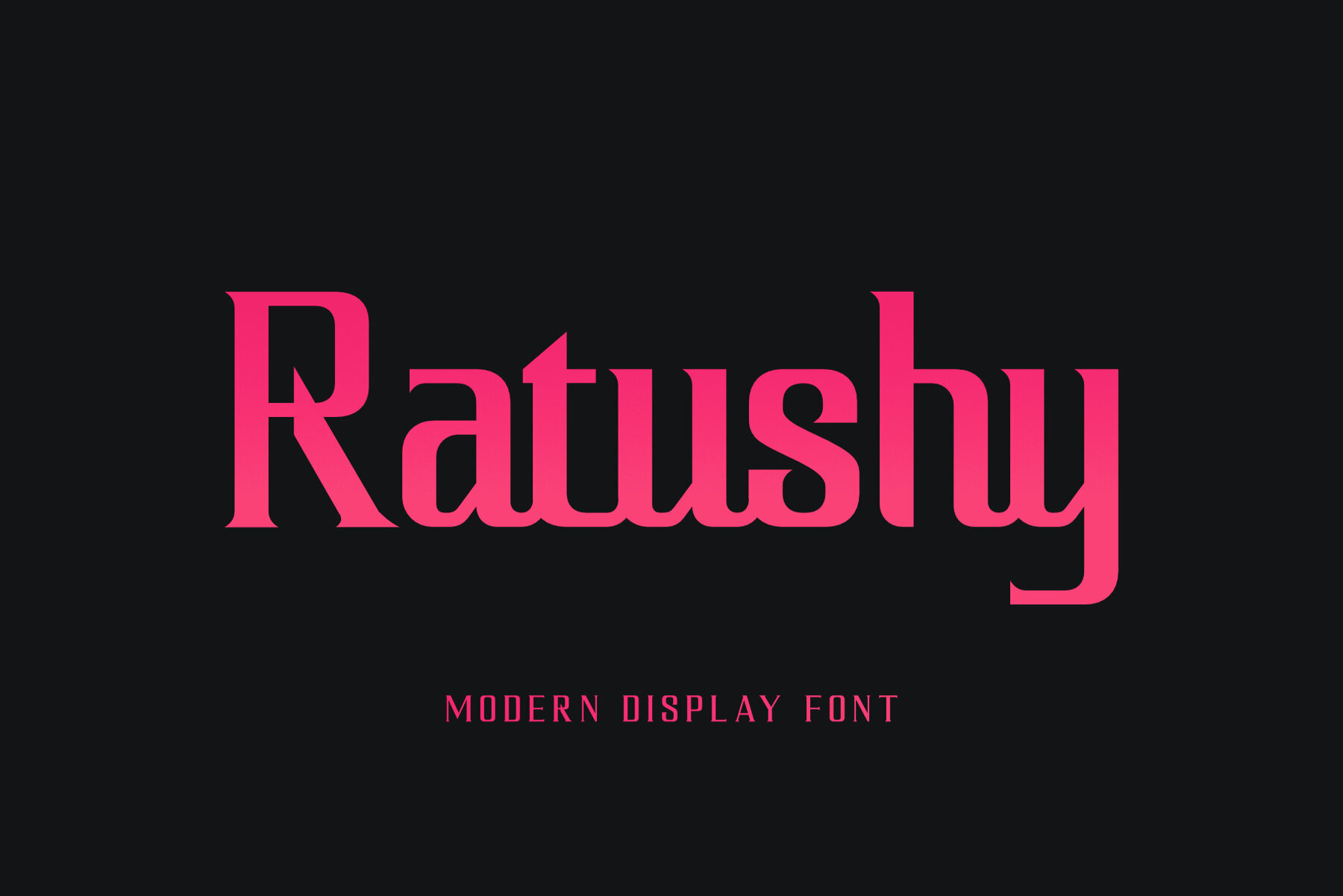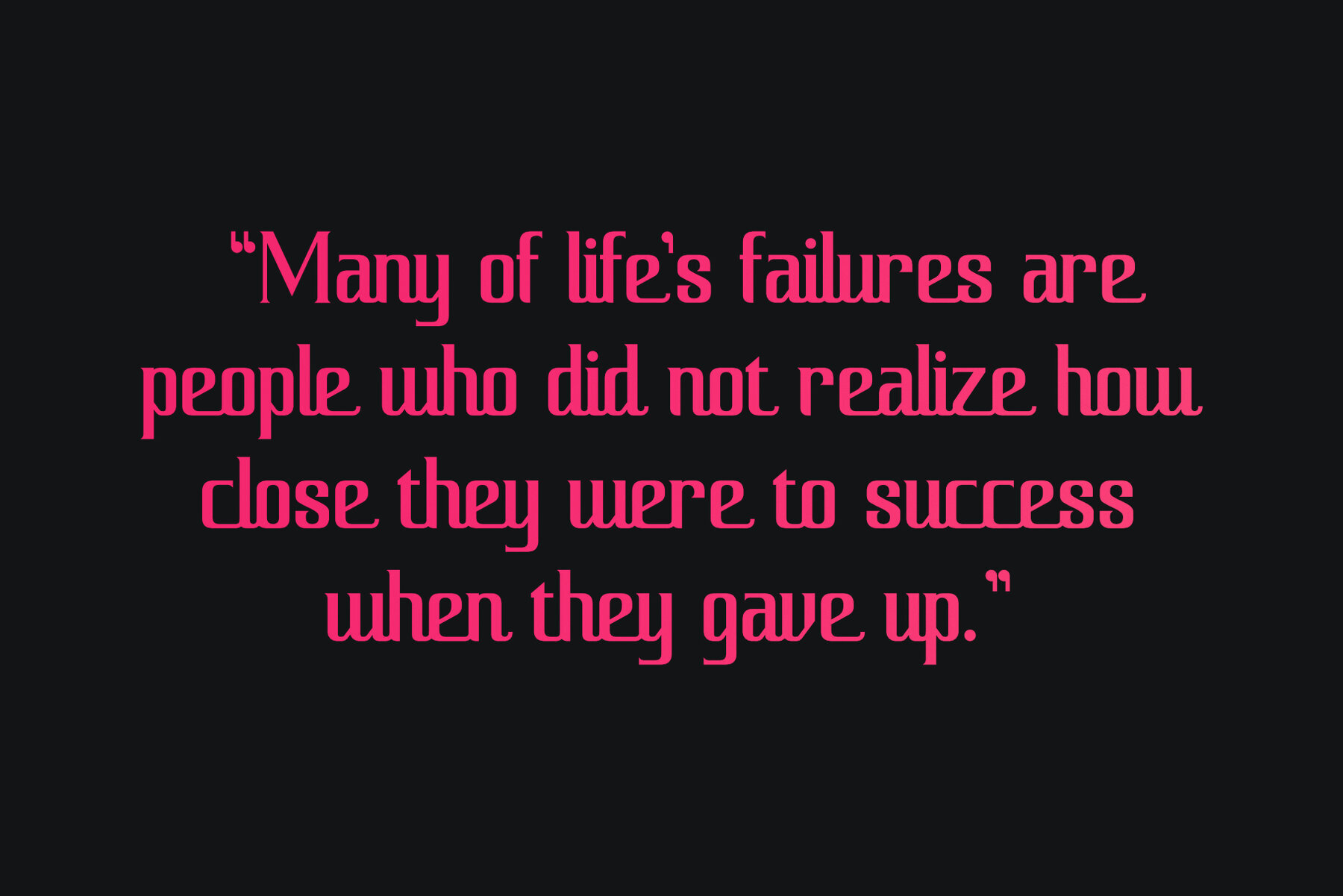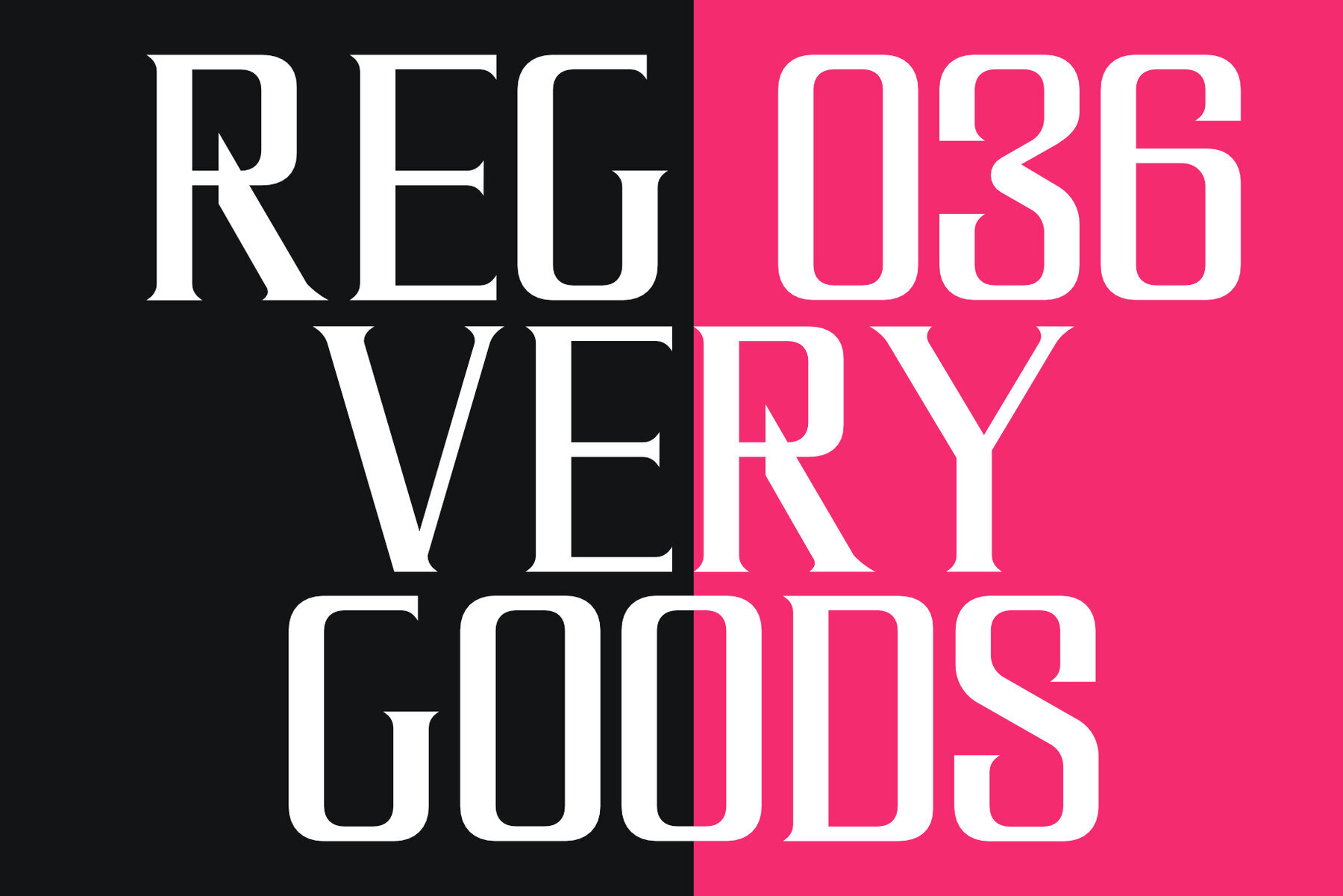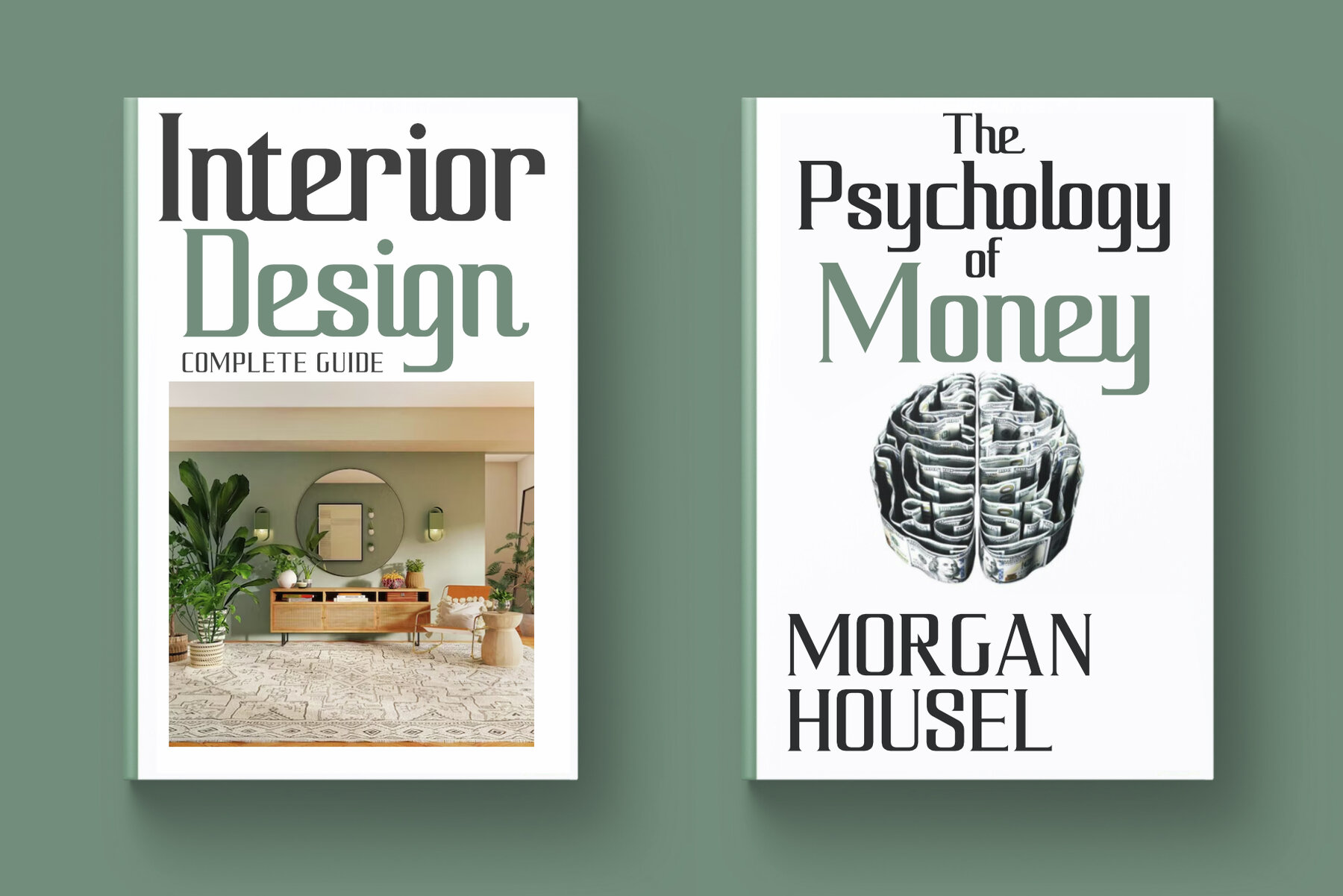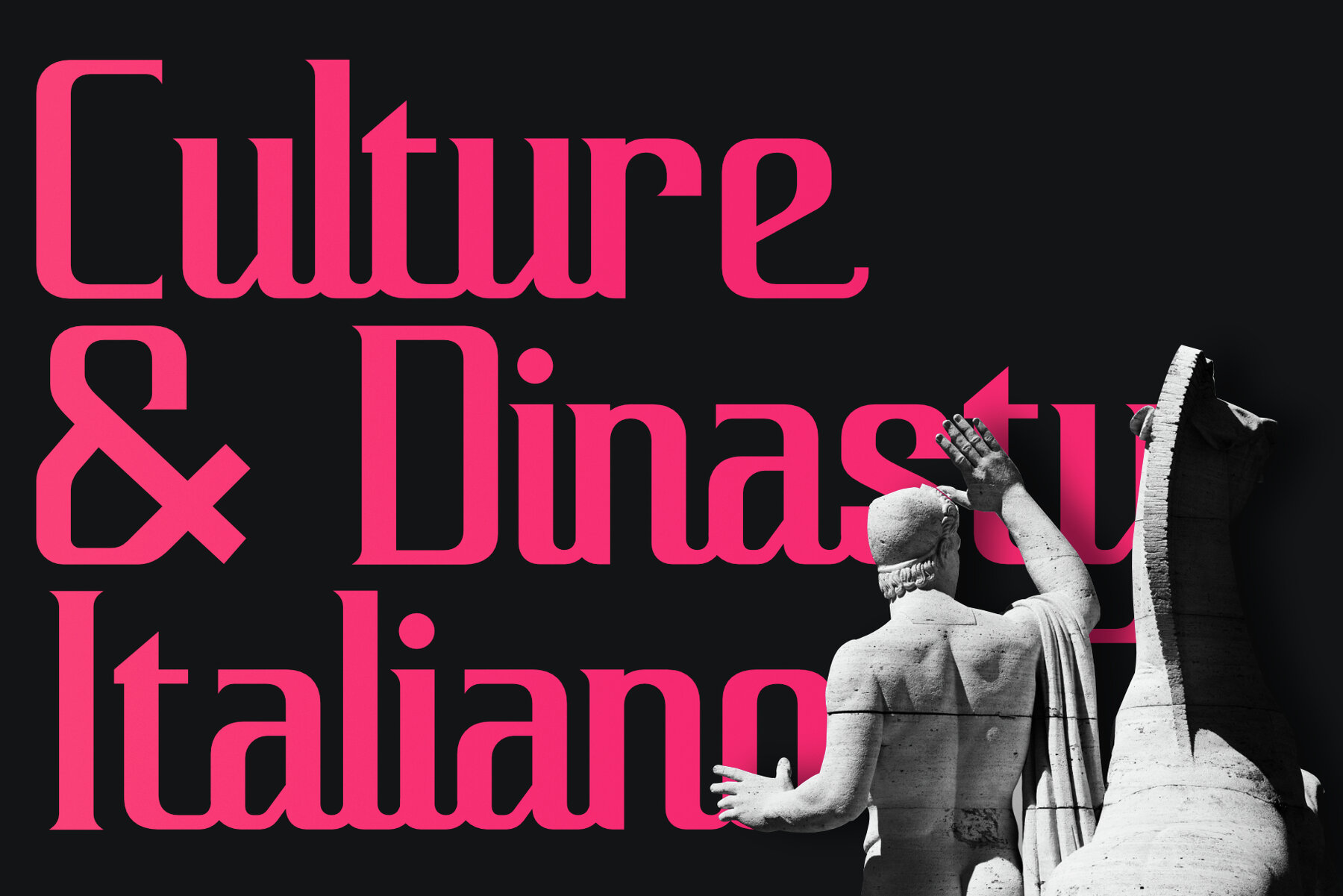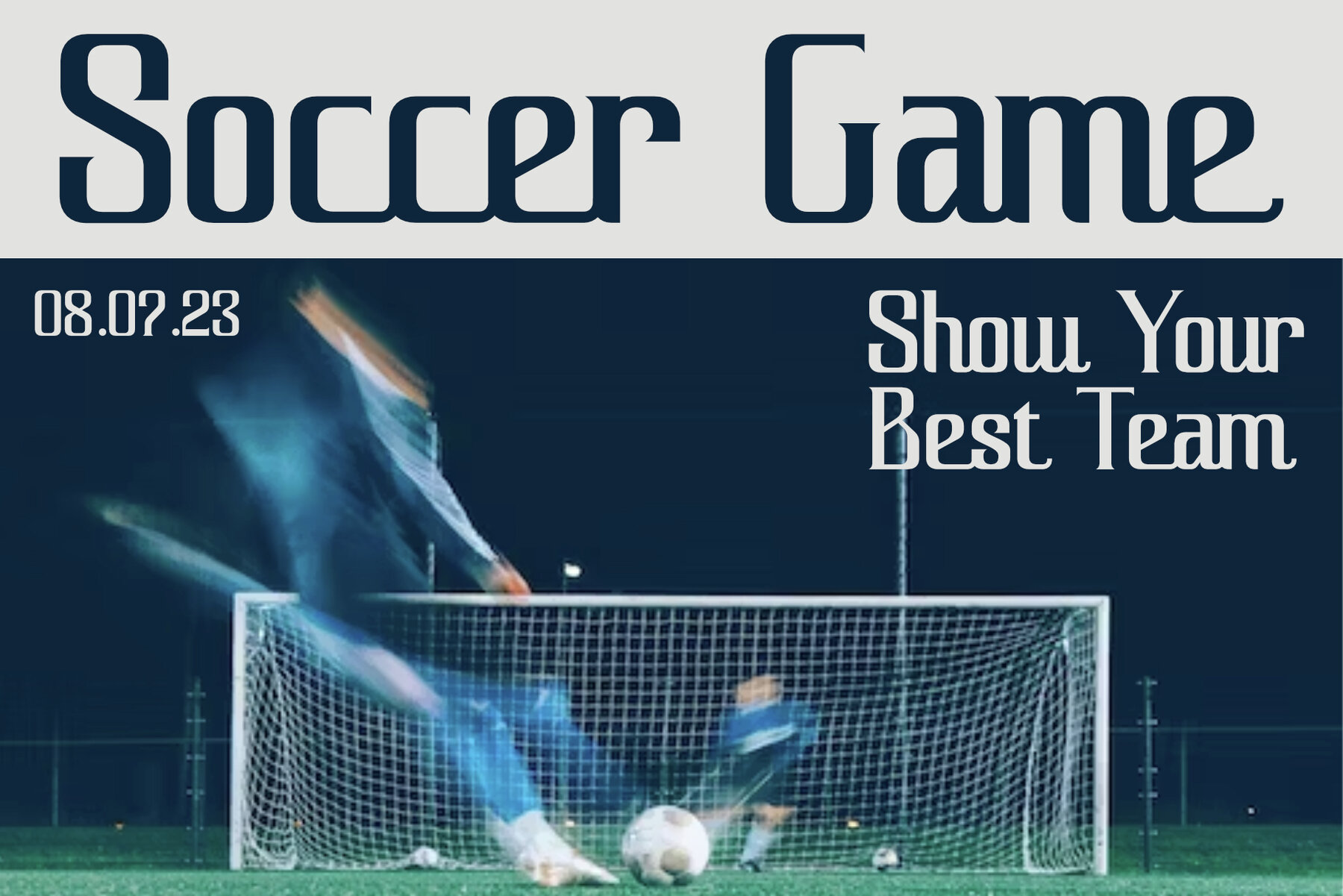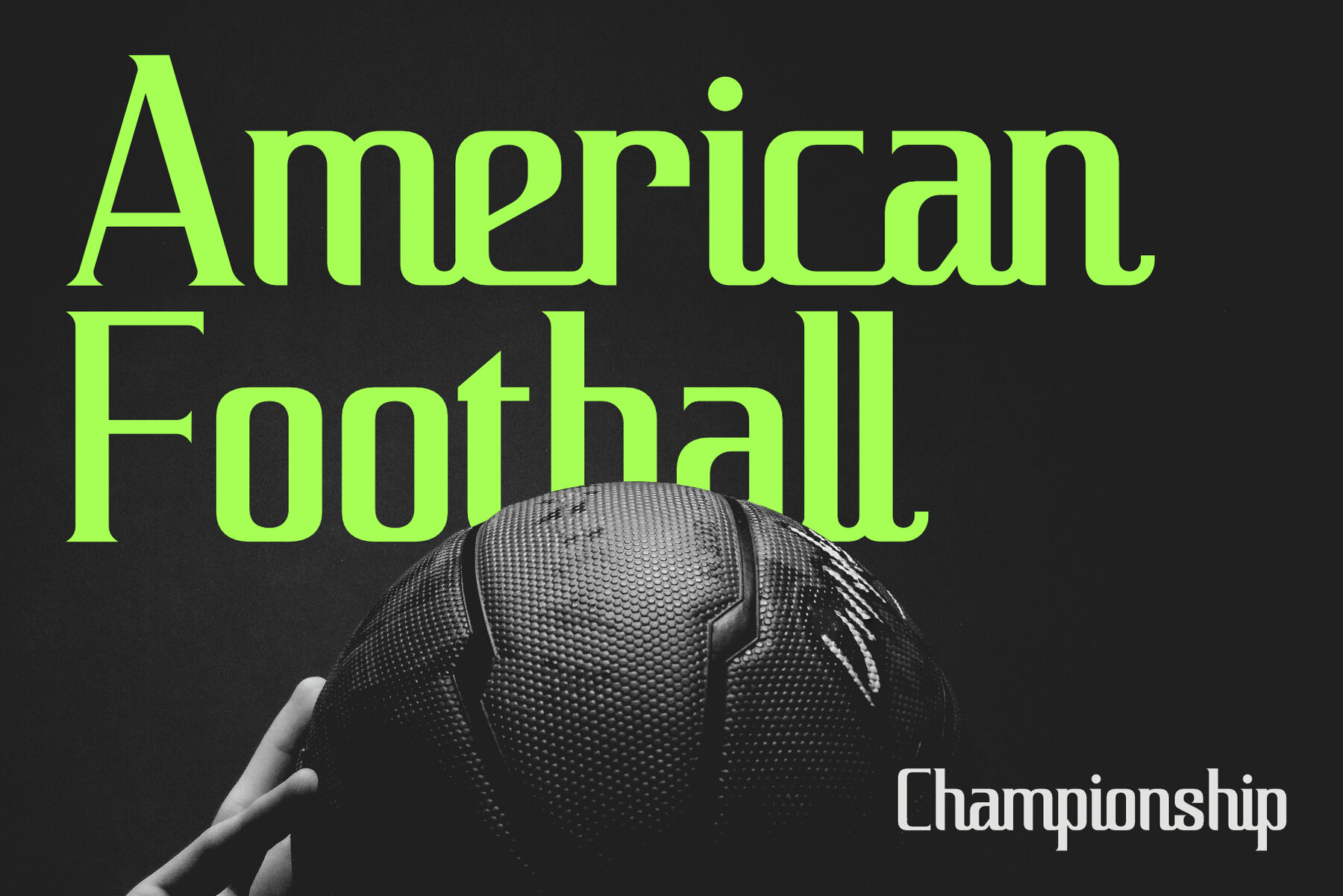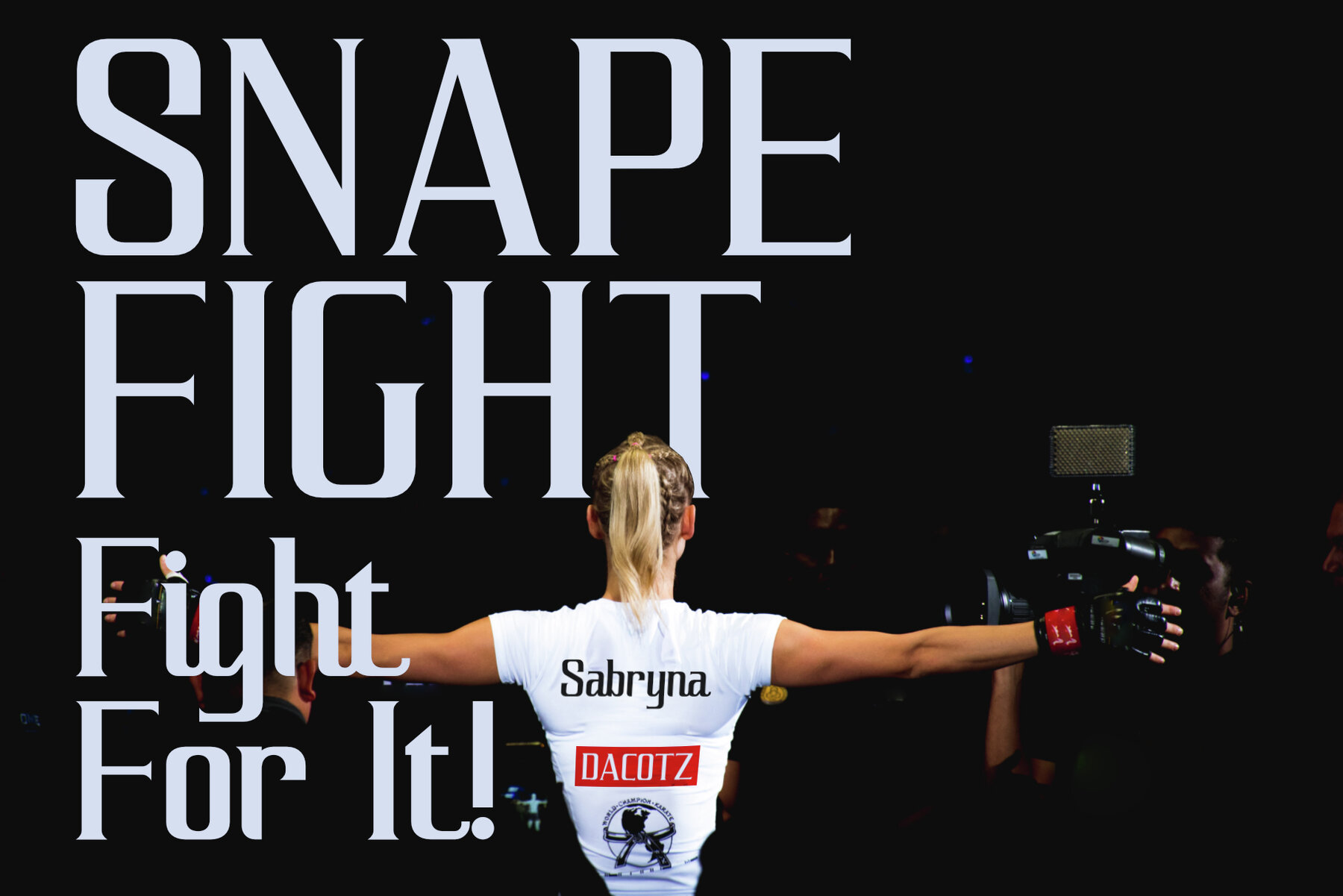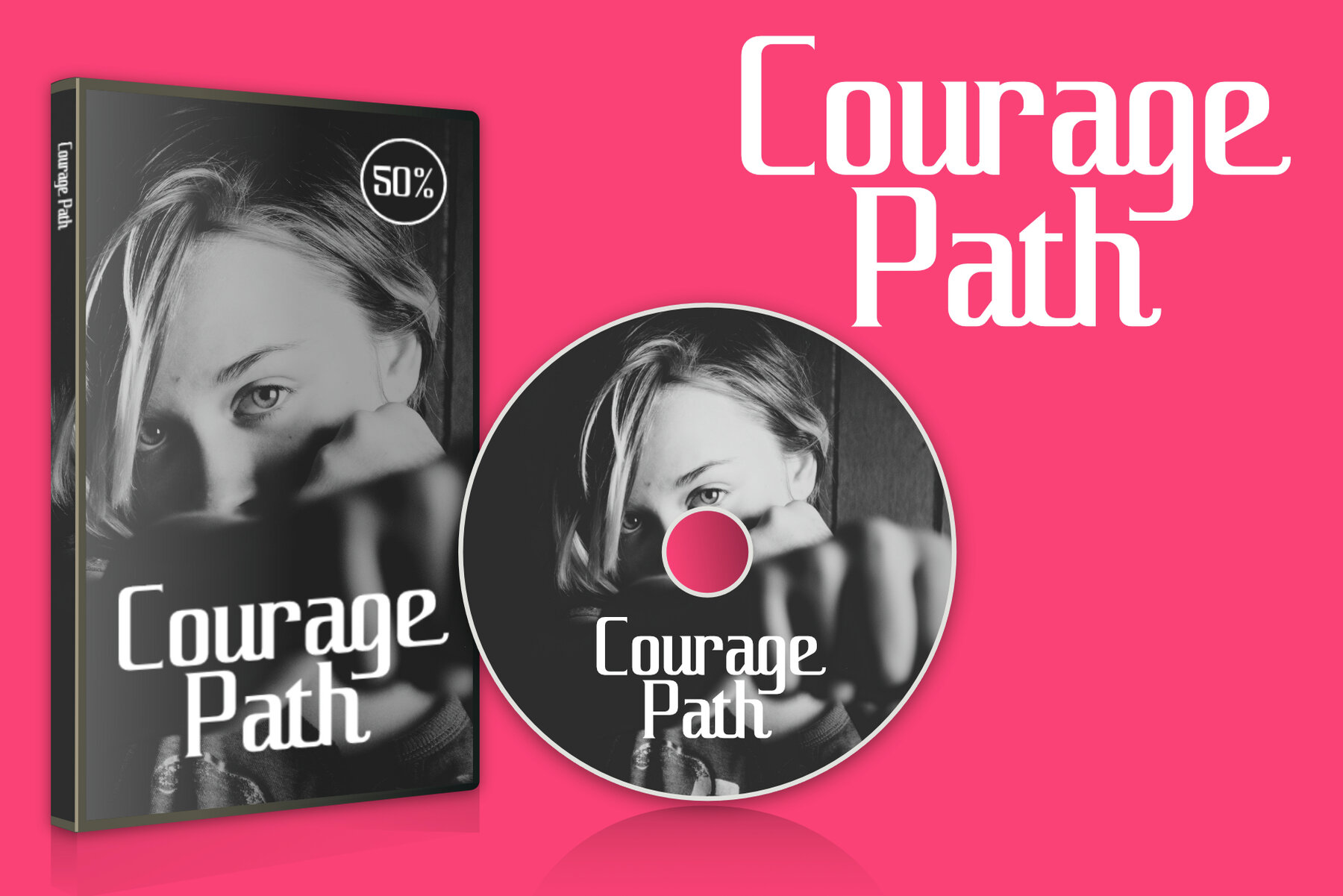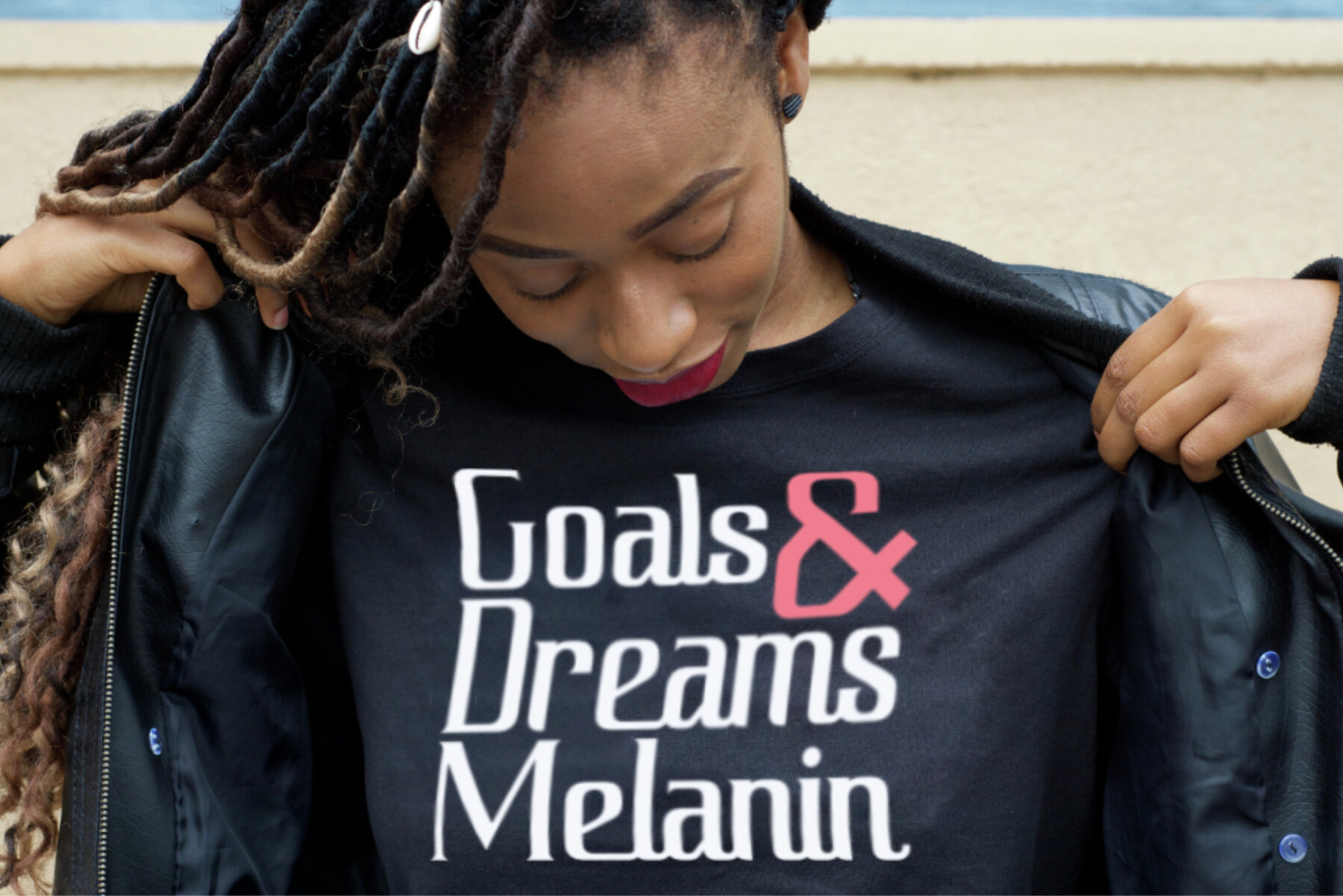
Ratushy Font
Ratushy Regular
Ratushy is a display font built on a serif base, uniquely characterized by its connecting lowercase letters. This distinctive design makes your projects stand out, offering a modern yet timeless appeal. Perfect for a wide range of uses, Ratushy is ideal for adding an attractive edge to your business identity. It is also well-suited for sports, e-sports logos, and hi-tech company branding. Additionally, Ratushy supports multiple languages to broaden its usability.Ratushy: Elegant Serif Display Font